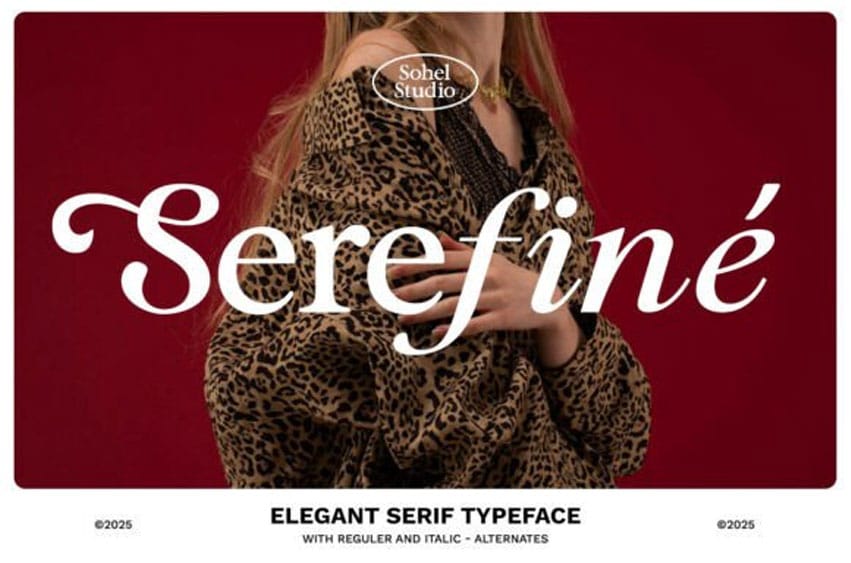
Serefine Font is a stunning high-contrast serif typeface seamlessly blending timeless beauty with a soft, modern touch. Perfect for everything from wedding invitations and captivating Instagram quotes to delightful packaging, Serefine imparts a luxurious and lovely feel to all your designs. It’s incredibly user-friendly and integrates beautifully with Canva, Cricut Design Space, and Silhouette Studio.
Available in both stylish Regular and Italic versions, and featuring lovely swashy alternates, Serefine is ideal for a diverse range of projects, including T-shirt quotes, planner pages, distinctive logo designs, and heartfelt greeting cards. Its elegant and feminine style, characterized by beautiful serif letterforms with romantic curves, adds unique flair to your words.